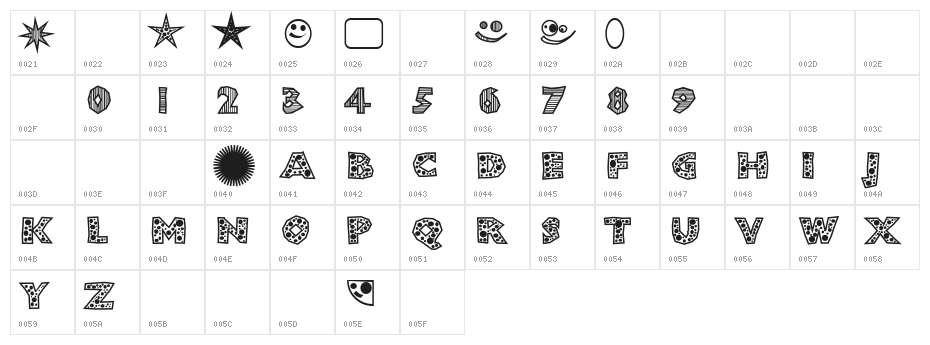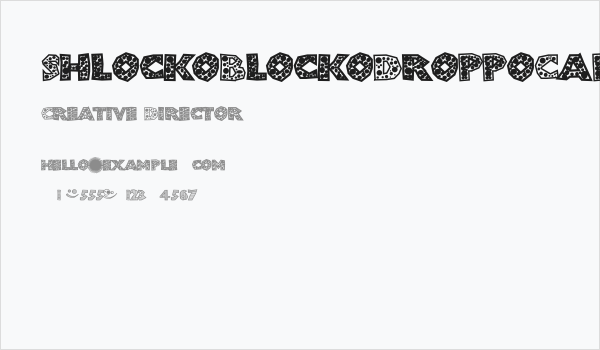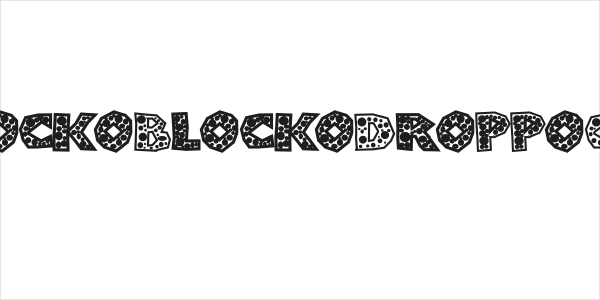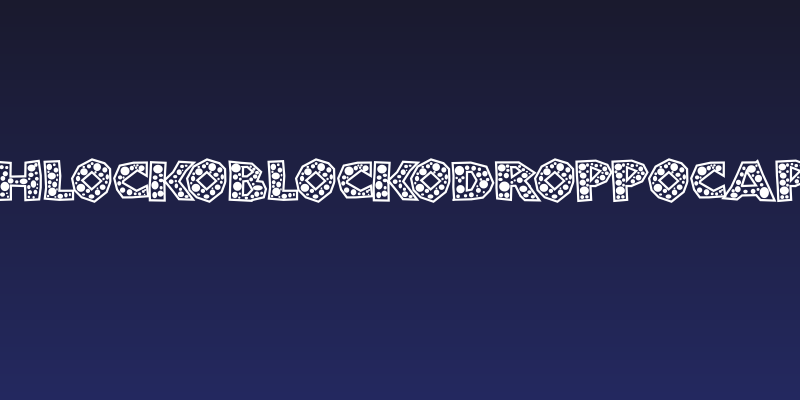
ShlockoBlockoDroppoCaps Font
ShlockoBlockoDroppoCaps Description
This font features a bold and playful design with a unique decorative style. Each character is filled with intricate patterns, including dots and stripes, giving it a lively and dynamic appearance. The uppercase letters are bold and eye-catching, making them ideal for attention-grabbing headlines or creative projects. The numbers and special characters maintain the same decorative theme, ensuring consistency across all elements. This font's whimsical and artistic nature makes it perfect for projects that require a fun and engaging visual impact.
| Proposed Projects | Ideal for children's book covers, party invitations, posters, and playful branding. |